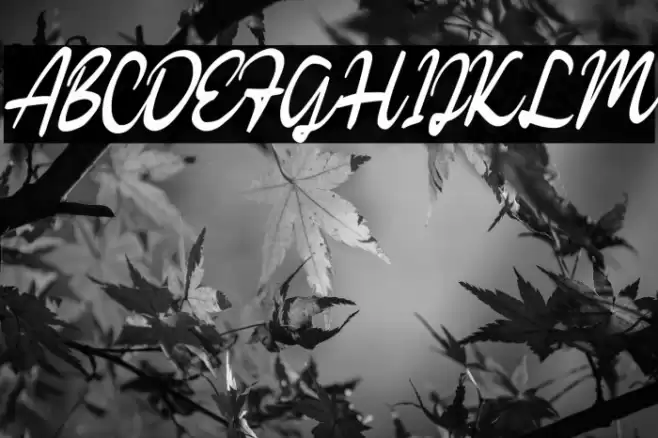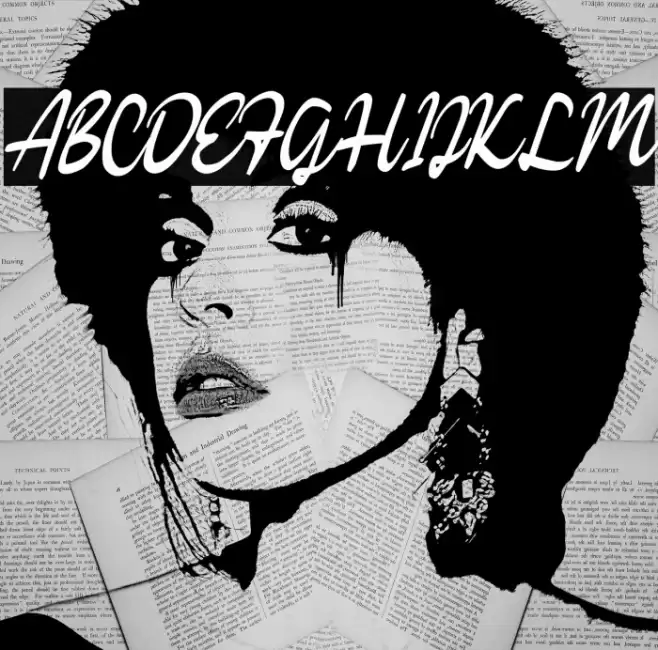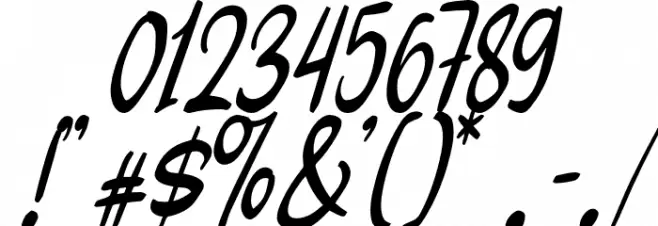
KathicaScriptDEMO-Regular Font
KathicaScriptDEMO-Regular Description
This font exhibits a dynamic and flowing script style, characterized by its cursive and connected letterforms. The strokes are smooth and fluid, giving it an elegant and handwritten appearance. The uppercase letters are bold and prominent, while the lowercase letters maintain a consistent flow, enhancing readability. The numerals and special characters are designed to match the overall script style, ensuring a cohesive look. This font is ideal for projects that require a personal touch, such as invitations, greeting cards, or branding materials. Its artistic flair makes it suitable for creative and expressive designs.
A dynamic and flowing script font with elegant, cursive letterforms from Uncategorized fonts.